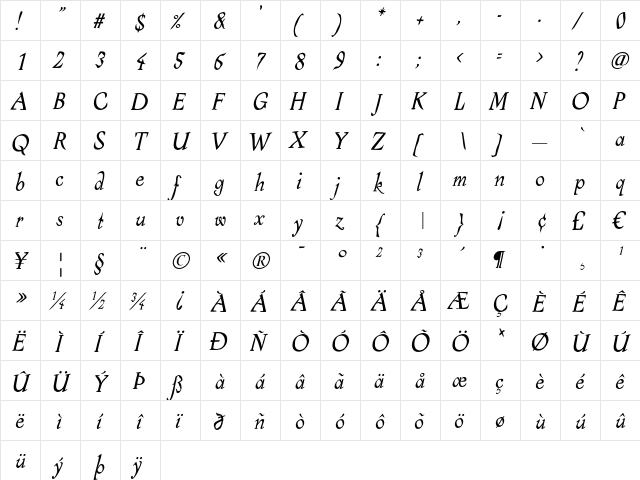
Alcoholica Italic
Design Context for Alcoholica Typeface
Alcoholica is a composed and adaptable typeface that performs quietly and consistently across a wide range of design contexts. The slanted form adds forward momentum and visual energy.
Pro Tip: Try Alcoholica for annotation and caption copy alongside an upright companion — the contrast in angle creates a dynamic but ordered typographic system.